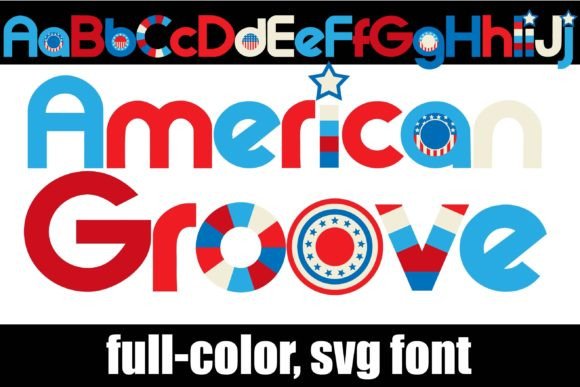
Discover the Star-Spangled Style of American Groove Font
I’ll never forget the time I was working on a Fourth of July project for a client, and I just couldn’t find the perfect font to capture the patriotic spirit. I scoured the internet, tried out dozens of fonts, but nothing seemed quite right. That was until I stumbled upon the American Groove Font. This full-color font features a retro design in a patriotic color palette that’s perfect for titles, displays, posters, and more. In this article, I’ll share my experience with American Groove Font, its features, and how to make the most of it in your designs.
An Honest Review of American Groove Font
• ✨ The unique retro-style design that’s perfect for patriotic projects
• ✅ The font comes in a full-color version, making it perfect for eye-catching designs
• 🎉 The alt case feature with additional colors that can be accessed through your system or Silhouette’s glyph map
While American Groove Font is an amazing design tool, there are a few things to keep in mind:
The Designer Inspiration Behind American Groove Font
American Groove Font was inspired by the classic designs of the 1970s and 1980s, with a modern twist. The designer wanted to create a font that would capture the spirit of American patriotism, while also being versatile and fun to use.